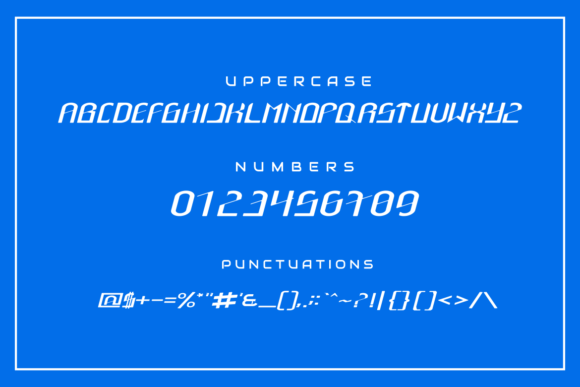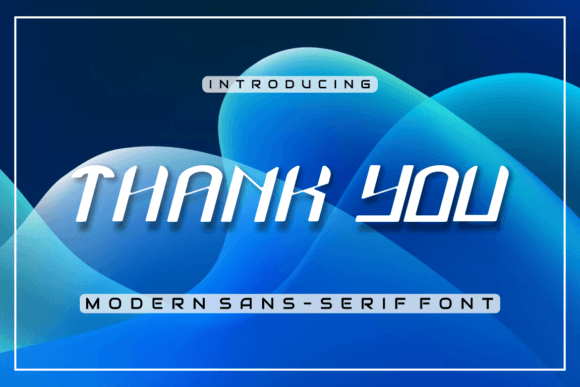
Discover the Power of Gearfont: Elevate Your Designs with a Cool and Innovative Sans Serif Font
Are you tired of using the same old fonts in your designs? Look no further! Gearfont is a game-changing sans serif font that’s here to take your creative projects to the next level. With its unique and innovative style, Gearfont is perfect for designers and crafters who want to add a touch of personality to their work.
The Versatility of Gearfont
One of the standout features of Gearfont is its versatility. This font is suitable for a wide range of projects, from branding and advertising to packaging and digital media. Whether you’re working on a logo, brochure, or social media graphic, Gearfont is the perfect choice. Its clean and modern design makes it easy to read, while its unique flair adds a touch of sophistication.
What Makes Gearfont So Cool?
So, what sets Gearfont apart from other sans serif fonts? For starters, its innovative design features a unique blend of geometric and organic shapes. This gives the font a fresh and modern feel that’s sure to grab attention. Additionally, Gearfont comes in a range of weights and styles, making it easy to use in a variety of contexts.
Benefits of Using Gearfont
• Stand out from the crowd: With Gearfont, you can create designs that are truly unique and eye-catching. Its innovative style ensures that your work will stand out from the competition.
• Easy to read: Despite its creative flair, Gearfont is incredibly easy to read. This makes it perfect for body text, headings, and titles.
• Versatile: As mentioned earlier, Gearfont is suitable for a wide range of projects. Whether you’re working on a logo, brochure, or website, this font is a great choice.
• Customizable: With a range of weights and styles to choose from, you can customize Gearfont to suit your design needs.
How to Use Gearfont in Your Designs
• Pair it with other fonts: Gearfont pairs well with a range of other fonts, from serif to script. Experiment with different combinations to find the perfect look for your design.
• Experiment with weights and styles: Gearfont comes in a range of weights and styles. Try using different variations to add visual interest to your design.
• Use it for headings and titles: Gearfont is perfect for headings and titles. Its unique style ensures that your text will stand out and grab attention.
Font Name Gearfor Font